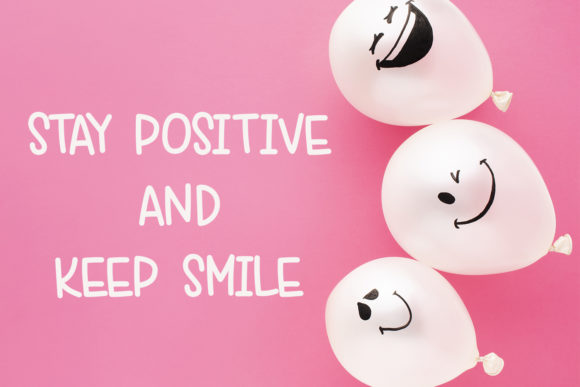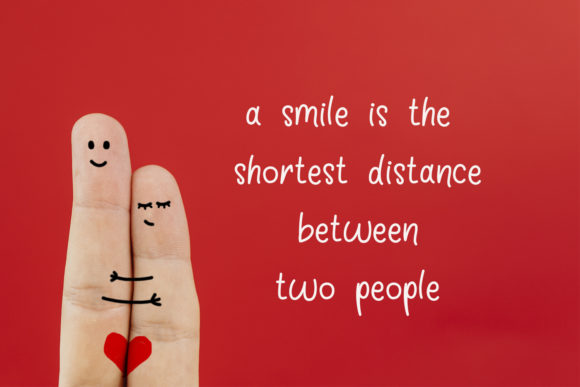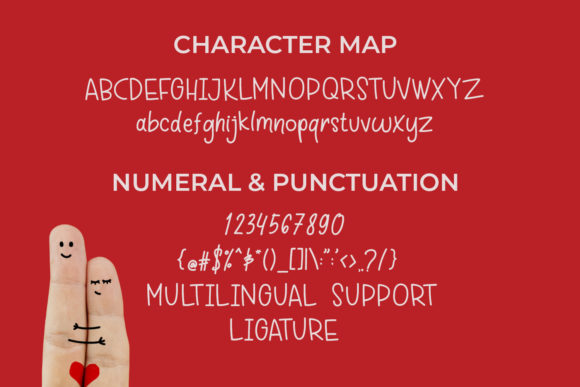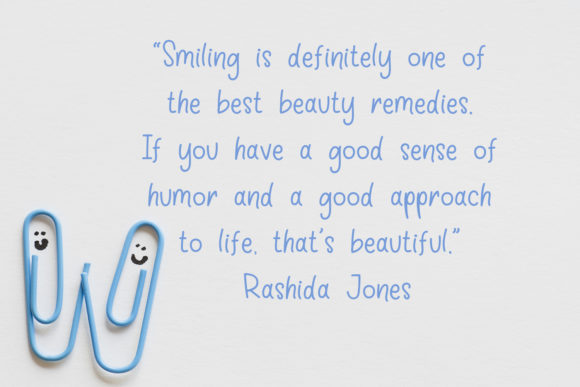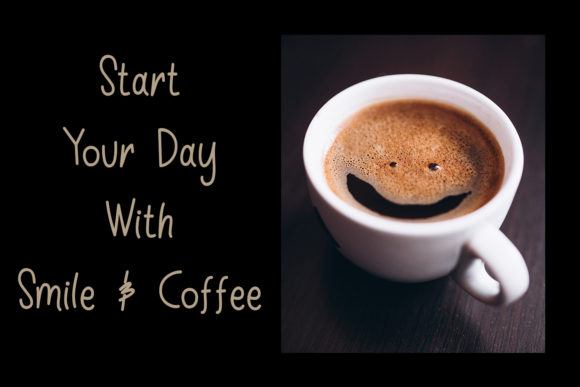
Smileday Font – Free Download
Introduction to Smileday Font
Smileday embodies fun, quirkiness and authenticity.
Use this gorgeous and unique display font to bring any DIY project to life .
Key Features of Smileday Font
Why Choose Smileday Font?